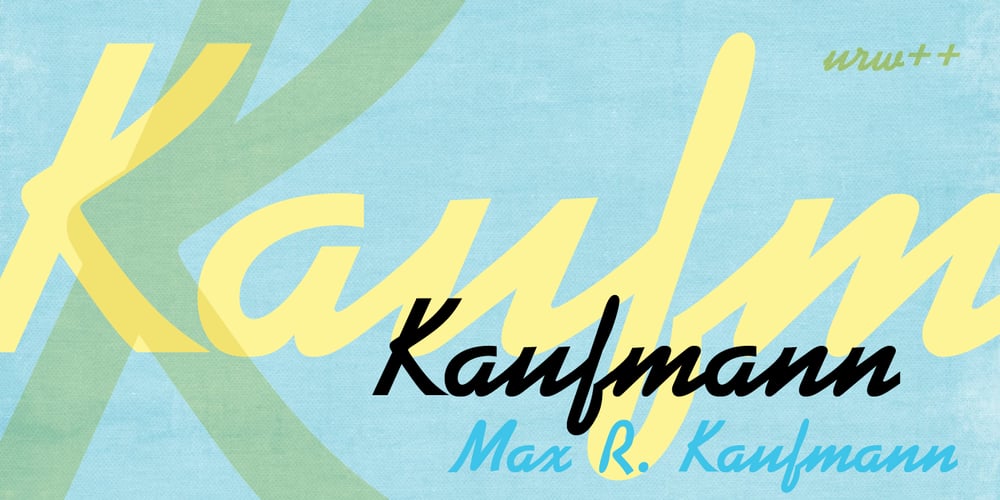
Kaufmann Font Family was designed by Max R. Kaufmann and published by URW Type Foundry. Kaufmann contains 1 styles and family package options. Kaufmann is a joining script designed for American Type Founders by Max R Kaufmann, a letterer, typographer and art director of McCalls magazine. Monotone in weight and with short descenders, the Kaufmann font family is useful for advertising and display work.